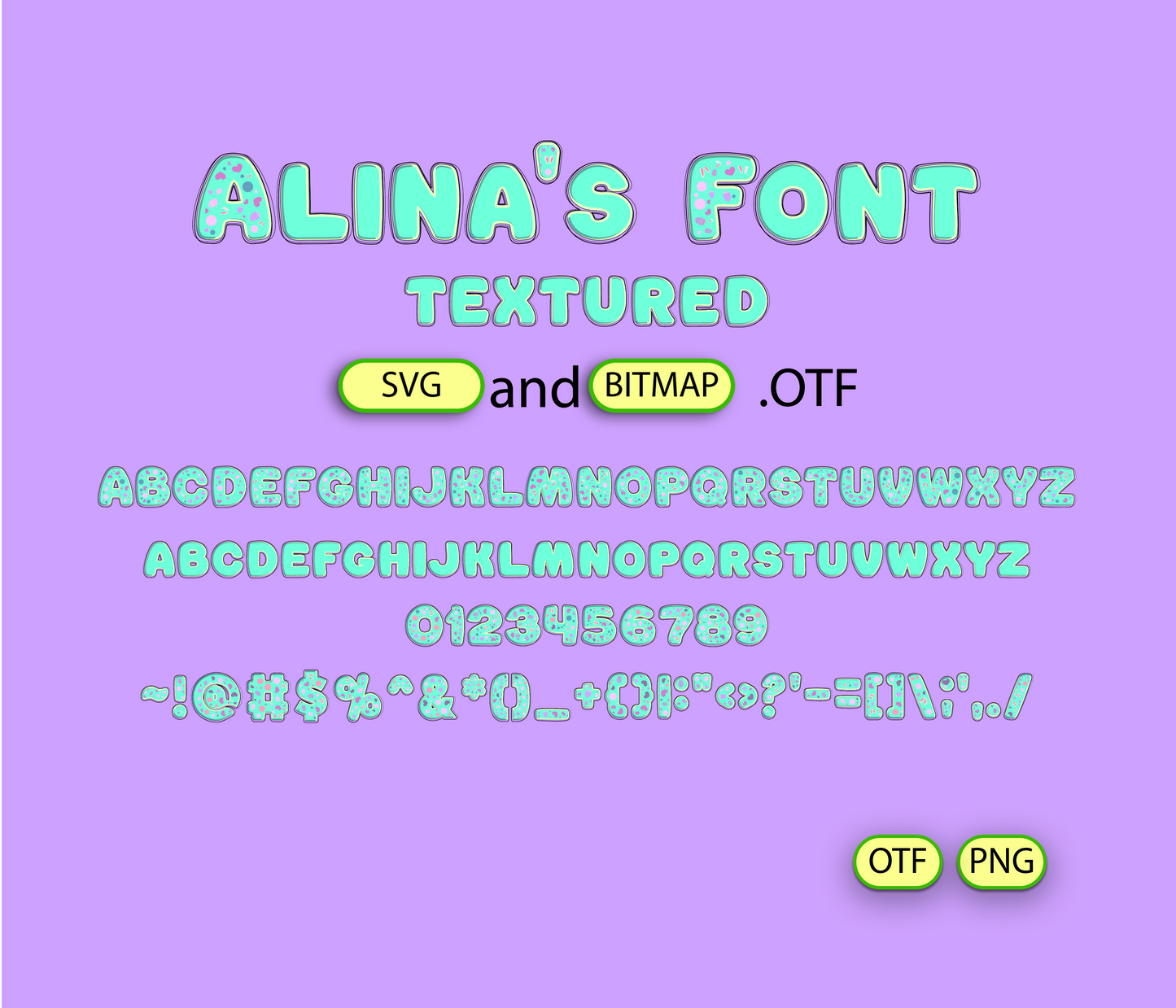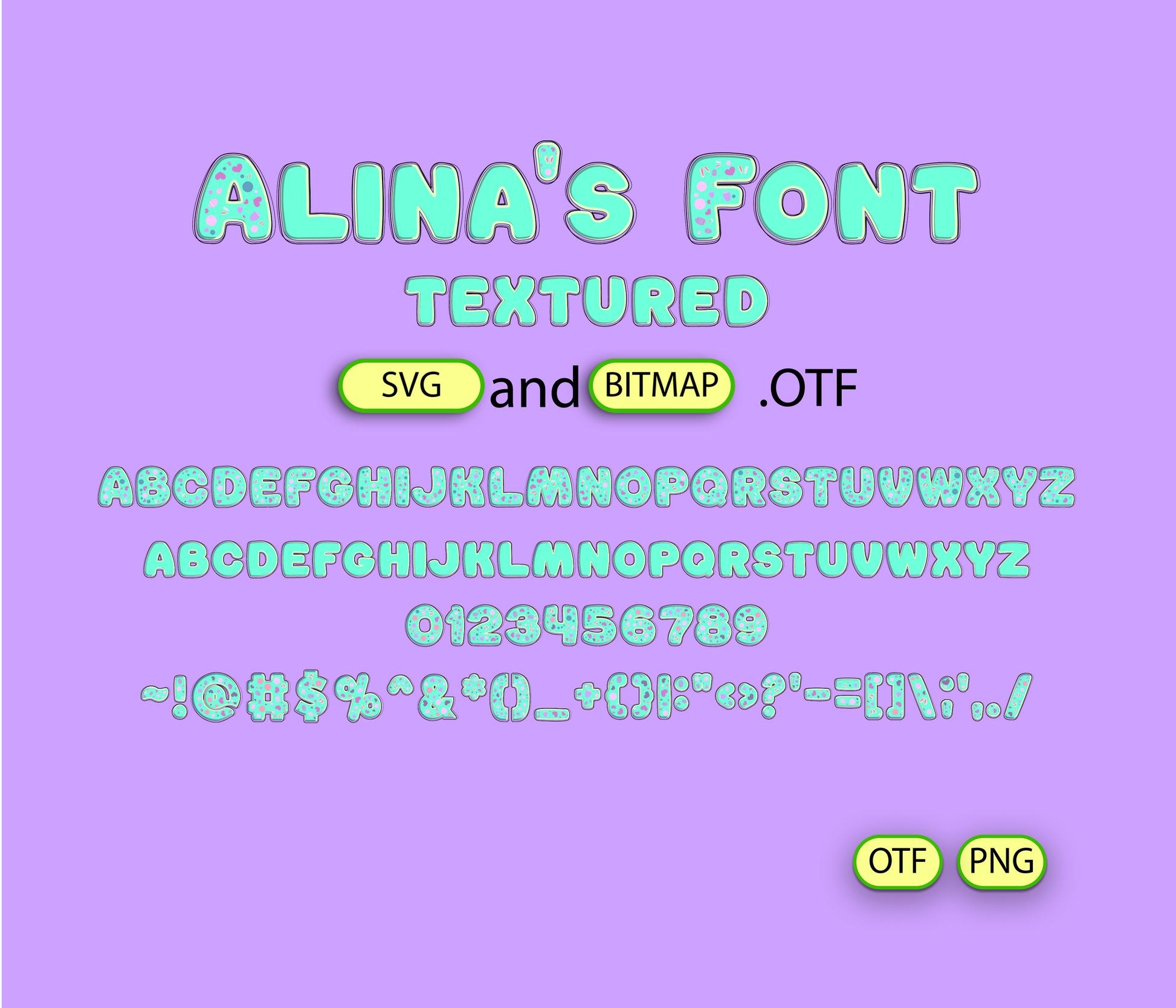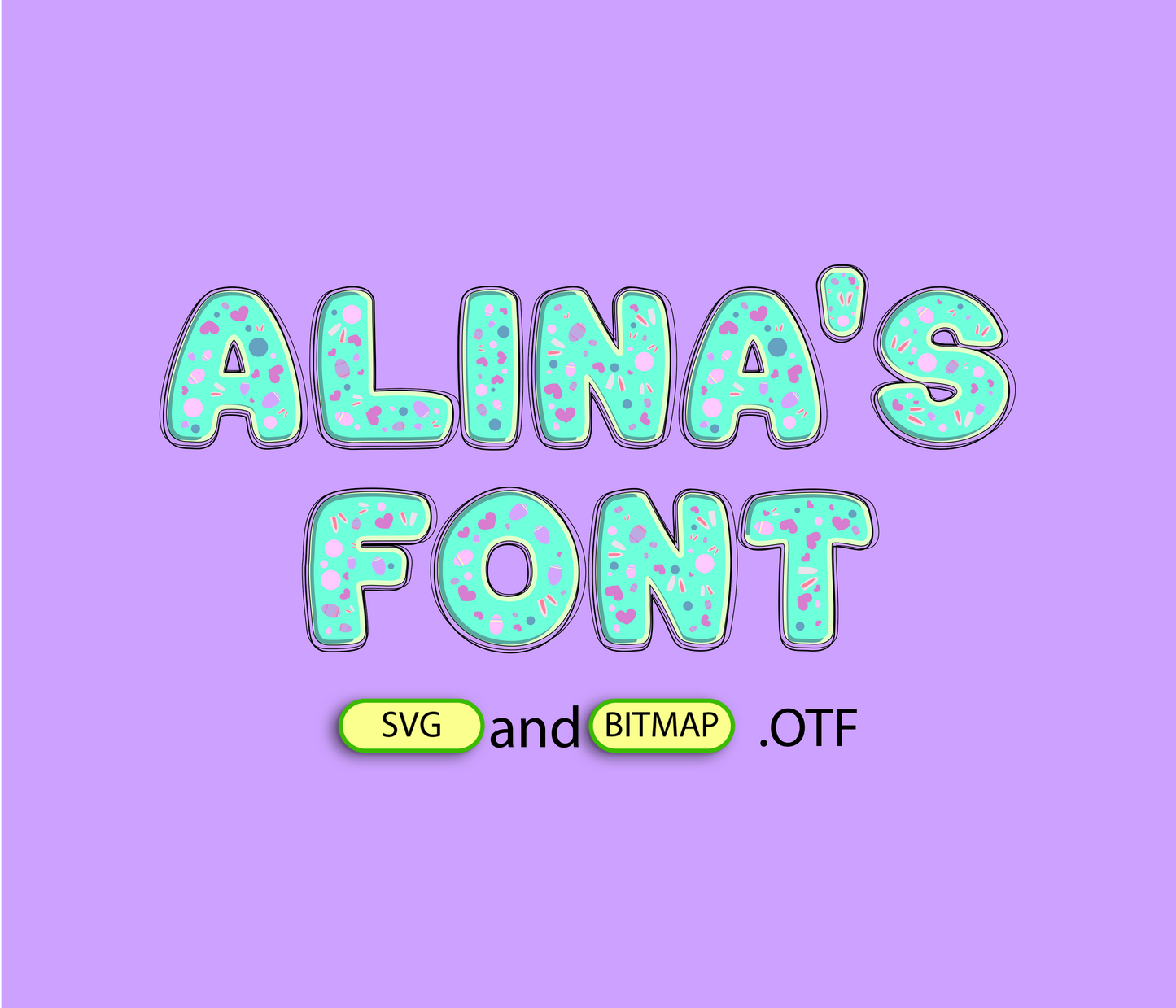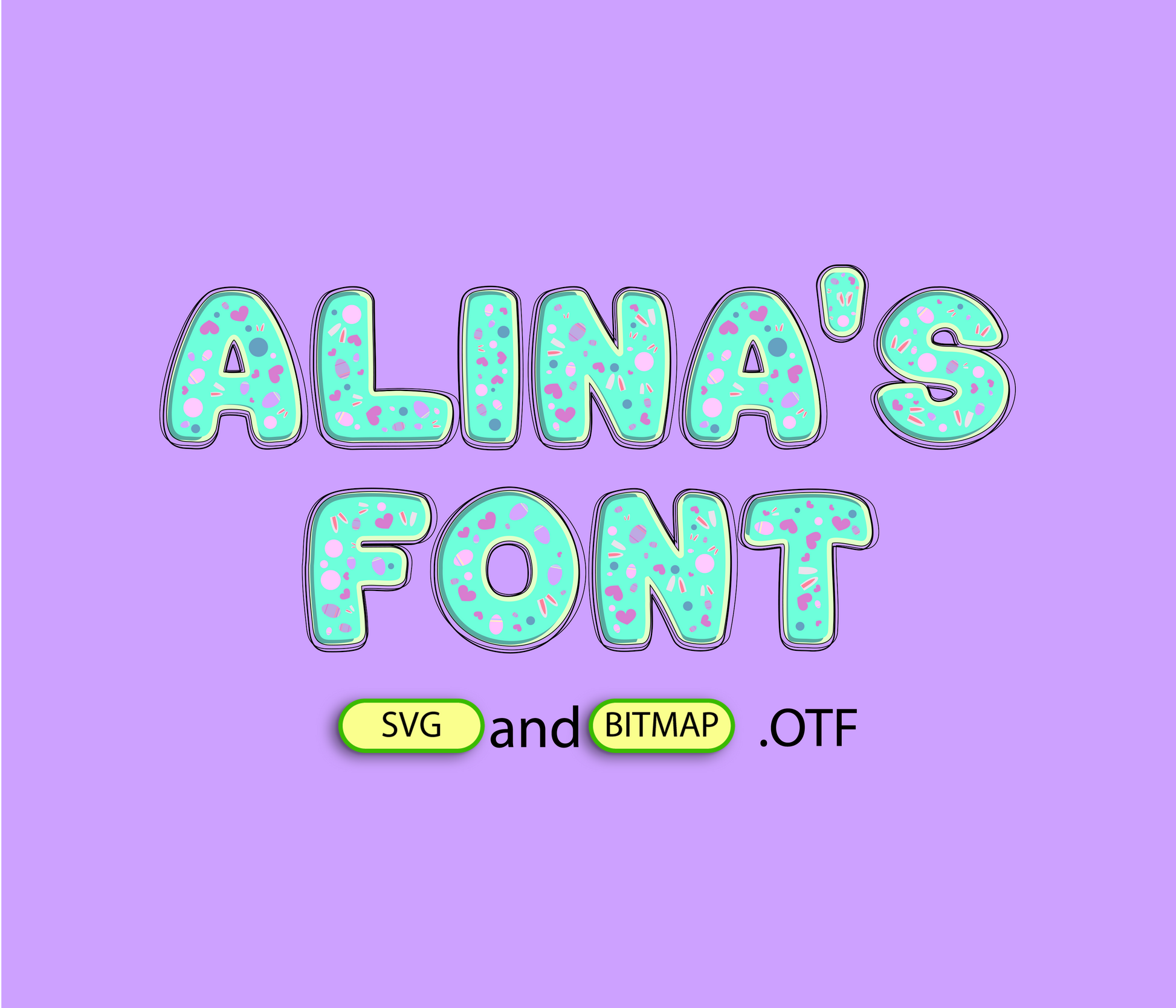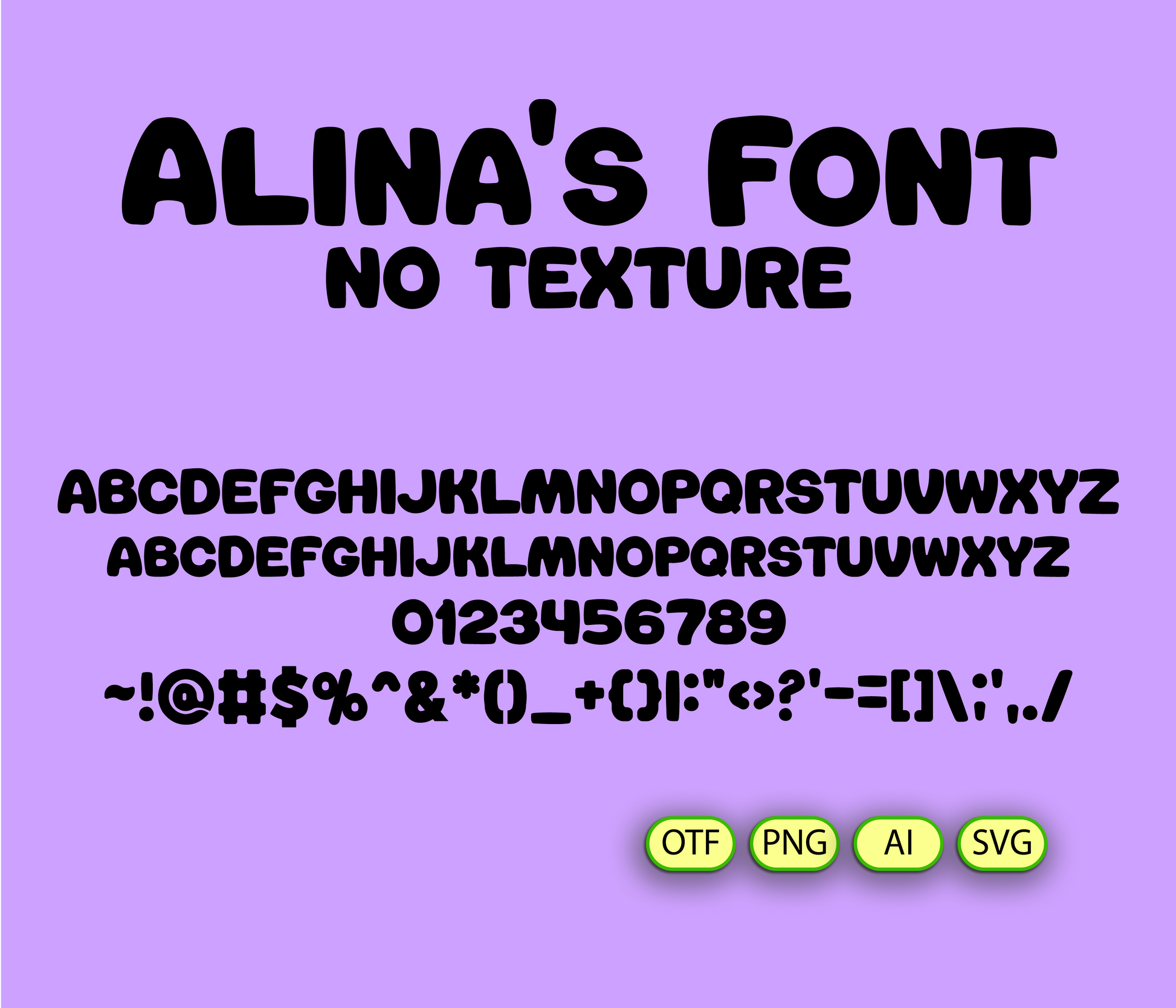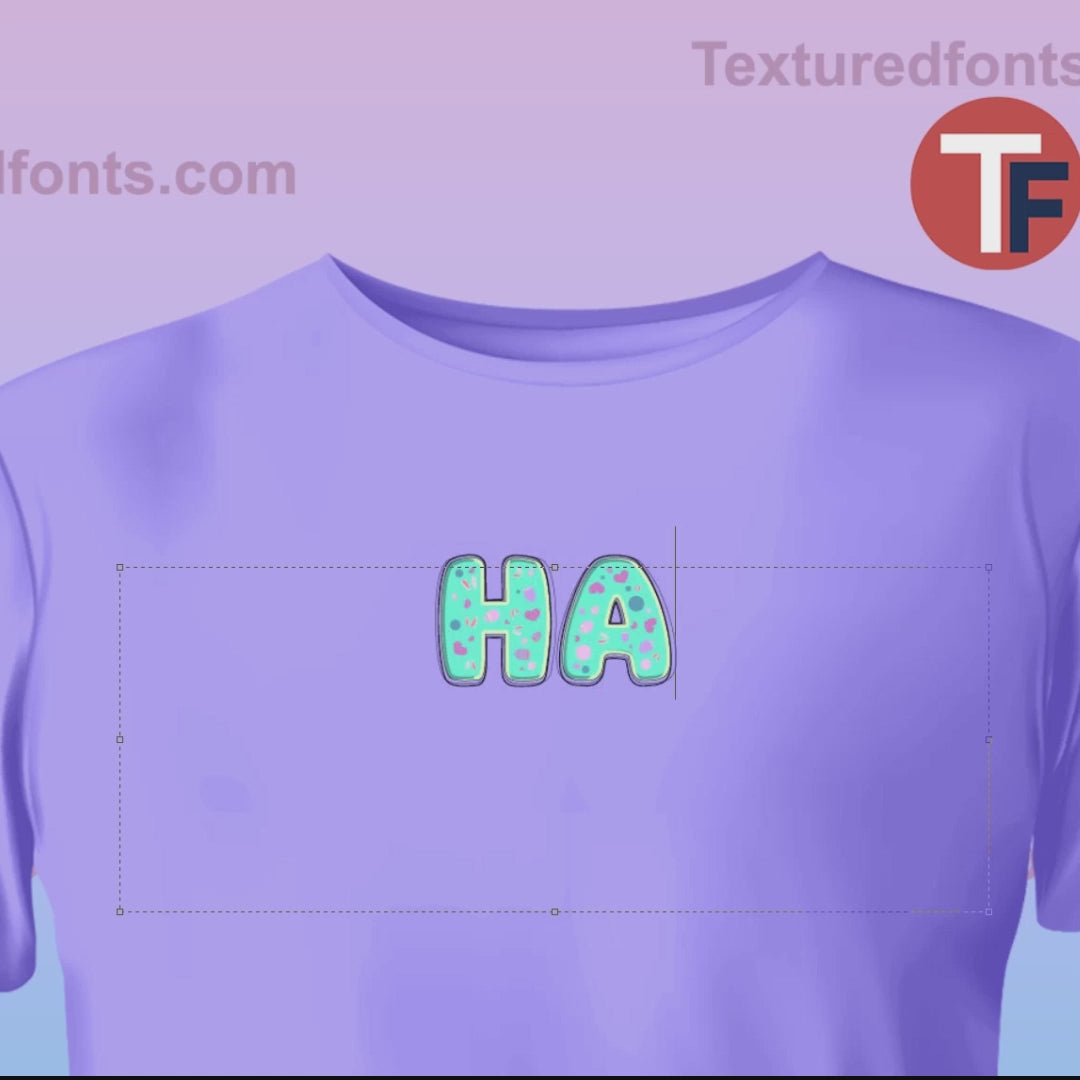
Colorful Easter Font Festive Pattern Font
Colorful Easter Font Festive Patterned Typeface
Celebrate the joyous season of Easter with our specially designed Easter font, a typeface that perfectly captures the essence of springtime rebirth, vibrant festivities, and joyful gatherings. Inspired by the themes of renewal and celebration, this font is infused with the spirit of Easter, making it ideal for invitations, festive banners, themed educational content, and heartwarming social media posts. Whether you're planning an Easter egg hunt, sharing holiday wishes, or crafting engaging content to celebrate the season, the Easter font brings a touch of whimsy and freshness to your projects, reflecting the lively essence of Easter.
Optimized for Canva, the Easter font ensures that designers of all skill levels can seamlessly integrate the warmth and brightness of Easter into their digital designs. This accessibility makes it a go-to choice for anyone eager to convey the spirit of Easter through visually appealing and emotionally resonant designs. The font's versatility extends to a wide range of applications, from digital graphics to printed materials, allowing for creative expression across various platforms.
Understanding the diverse needs of our user base, we've included a no-texture version of the Easter font. This variant ensures compatibility across all software, making it a flexible option for both digital and print projects. Whether you're working on sophisticated invitations, festive merchandise, or engaging marketing campaigns, the no-texture version of the Easter font provides a clean and polished look that complements any Easter-themed project.
With its comprehensive character set and user-friendly design, the Easter font is accessible to all, inviting users to infuse their projects with the essence of Easter. This font, complete with its no-texture variant, enriches your creations with the spirit of spring and the joyous celebration of Easter, making every design a vibrant homage to the season. Embrace the renewal of spring with our Easter font and let your designs bloom with creativity and festive cheer.